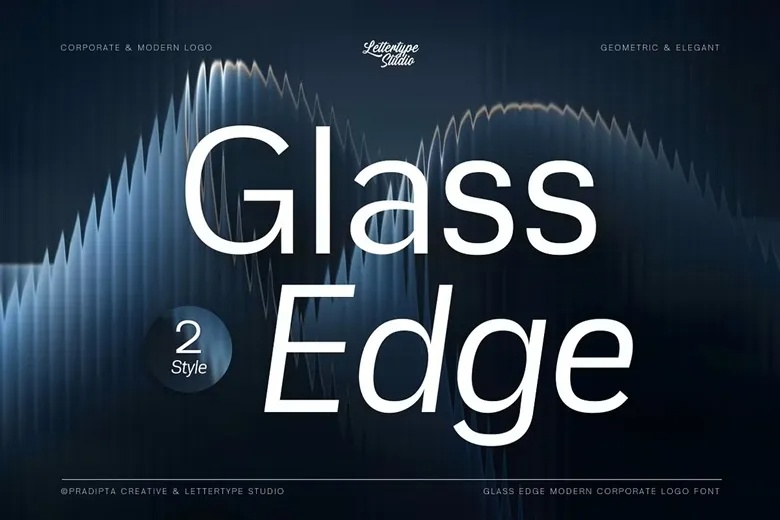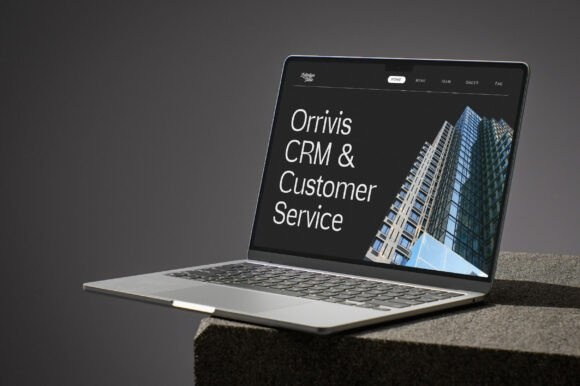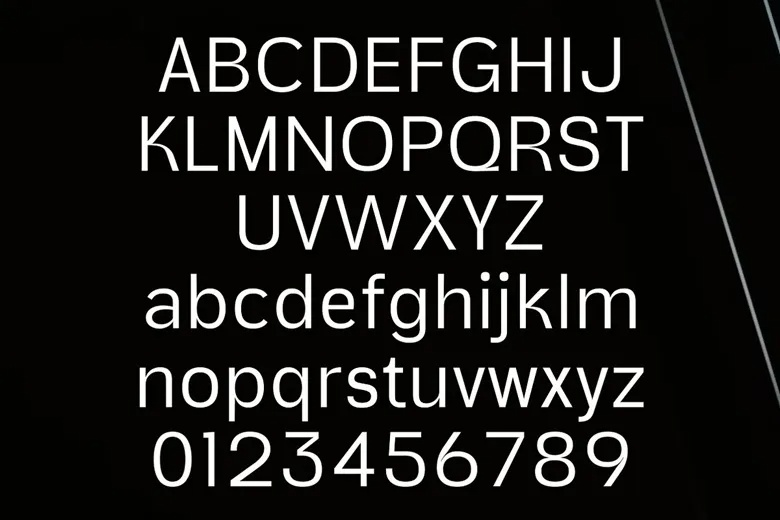
Glass Edge is a contemporary grotesque sans serif font that combines bold professionalism with sleek modernity. Inspired by the clean, glass-like aesthetics of modern mobile app interfaces, this typeface brings a sharp, tech-driven edge to any design. With its geometric structure and refined curves, Glass Edge exudes clarity and futuristic elegance—ideal for corporate branding, UI design, software identities, and minimal visual systems that demand both strength and sophistication.
The type family includes Regular and Oblique styles, offering versatility for everything from headlines and UI layouts to branding kits and packaging. Whether you’re building a forward-thinking tech brand or refining a sleek digital presence, Glass Edge strikes the perfect balance between functional grotesque form and modern visual finesse—making it a go-to choice for clarity, innovation, and style.
Glass Edge Sans Serif Font